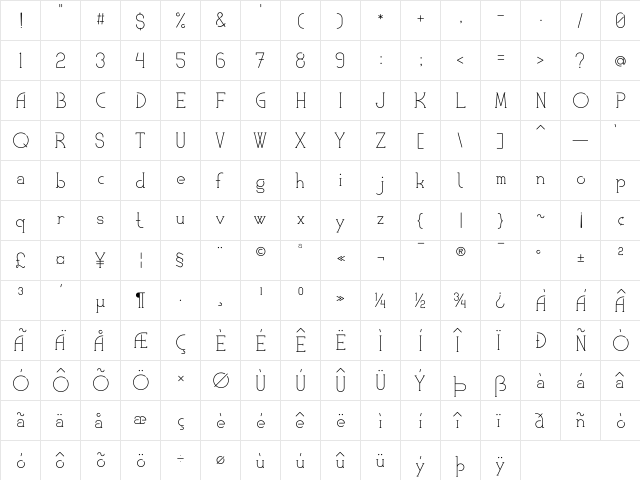
KlubKatz Regular
Design Context for KlubKatz Typeface
KlubKatz is a composed and adaptable typeface that performs quietly and consistently across a wide range of design contexts.